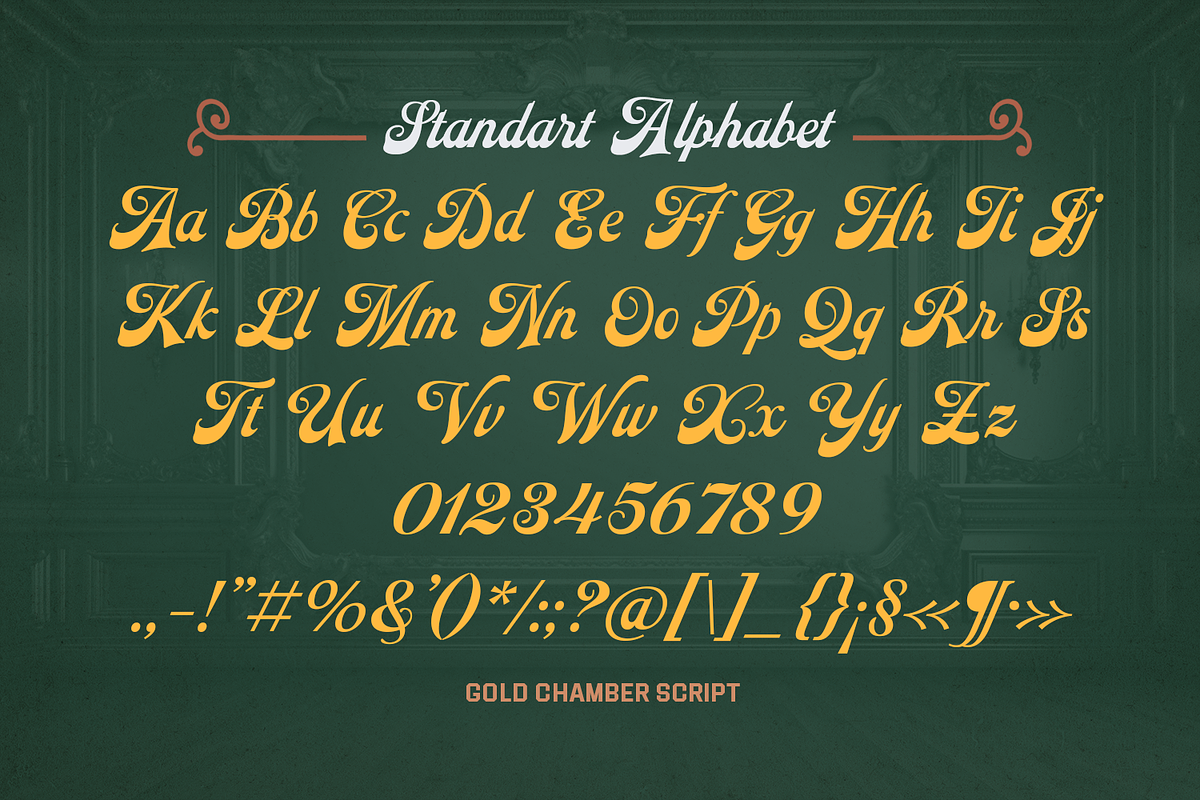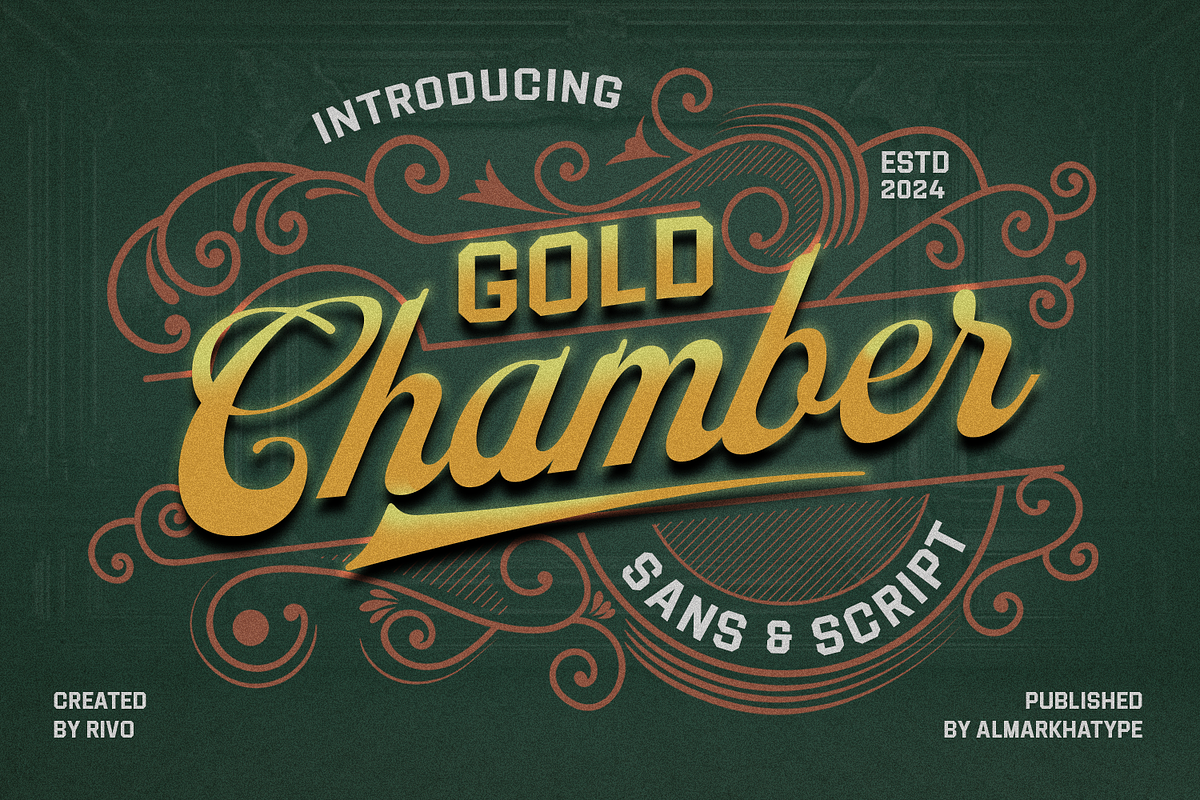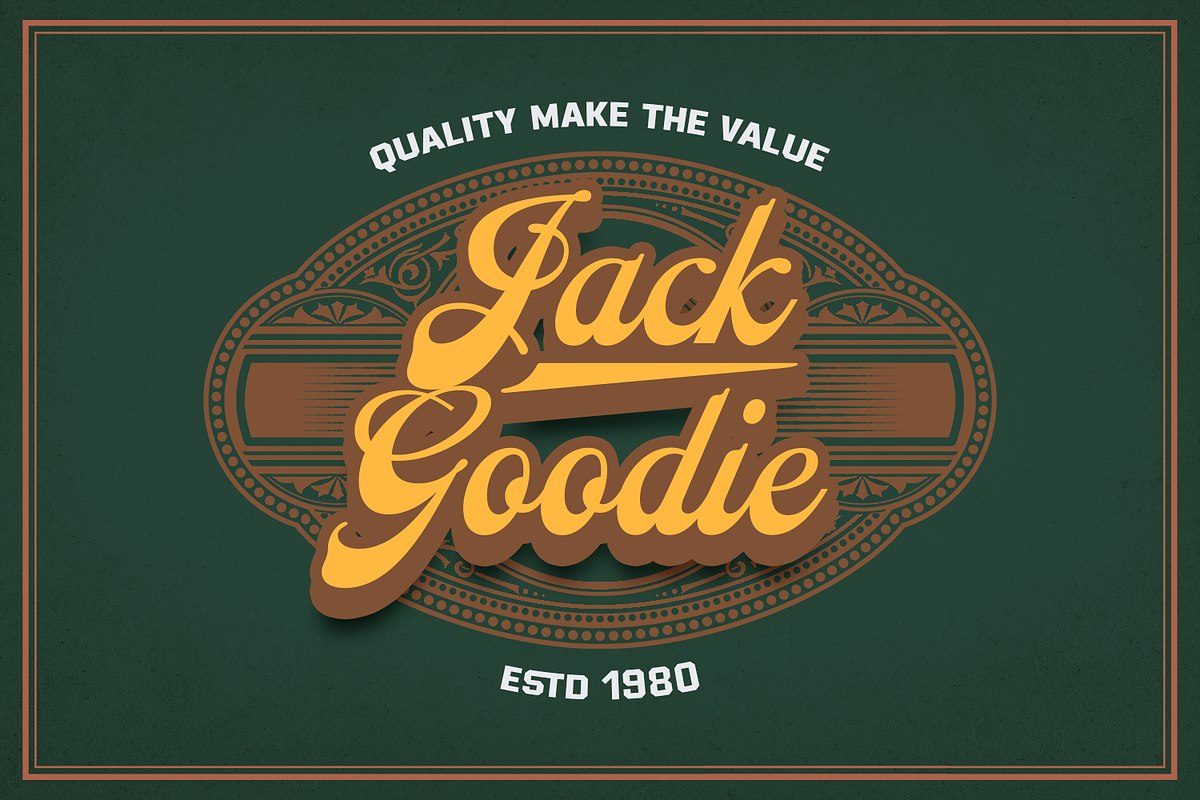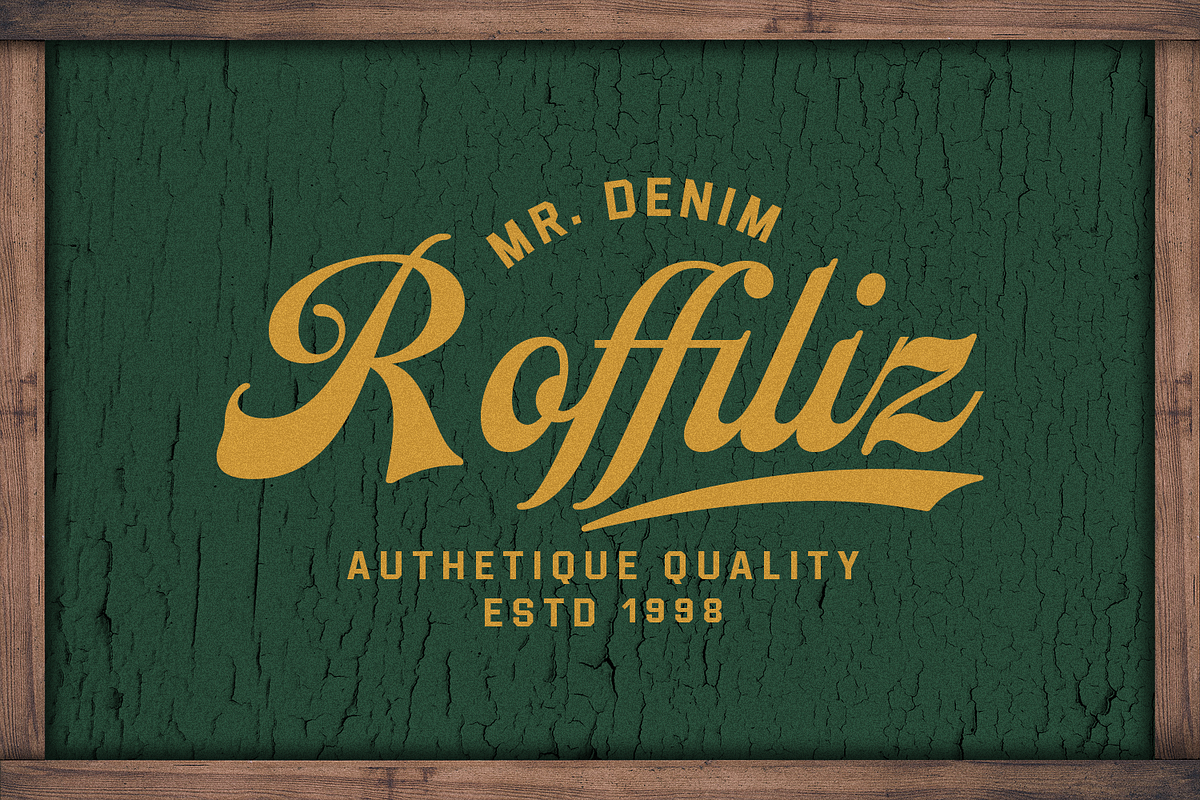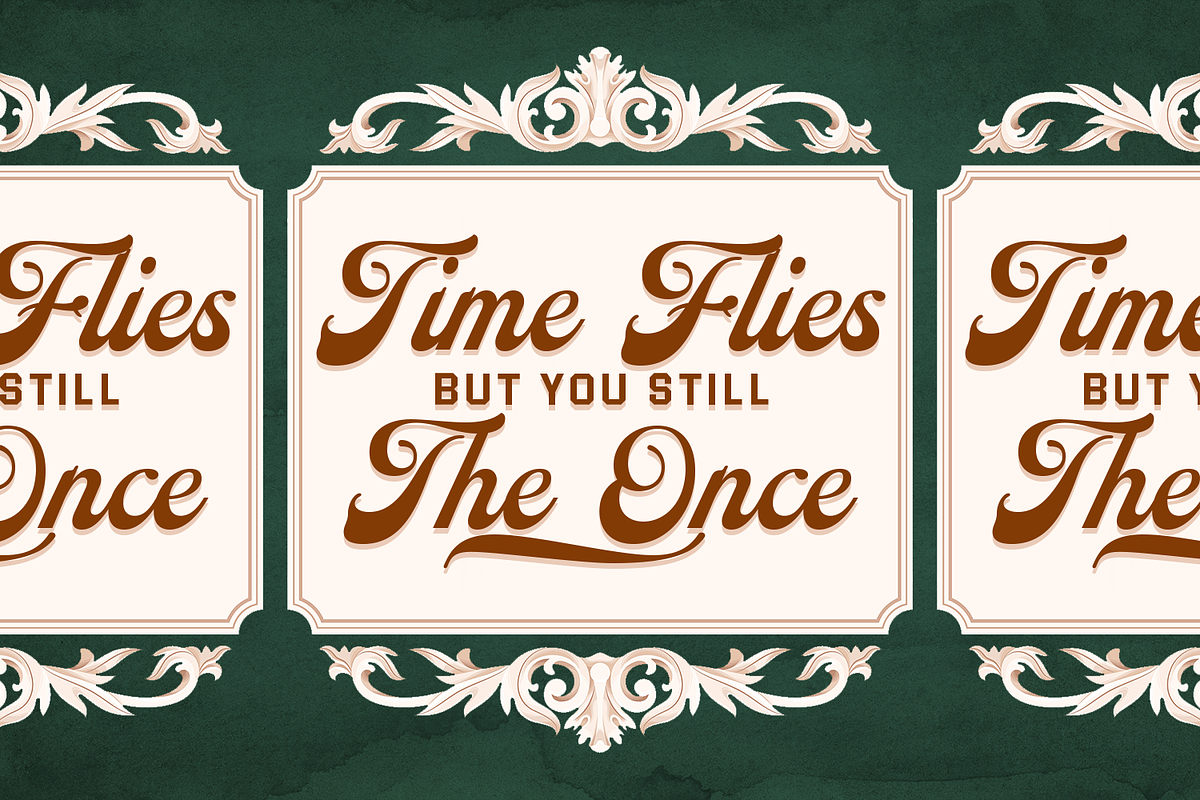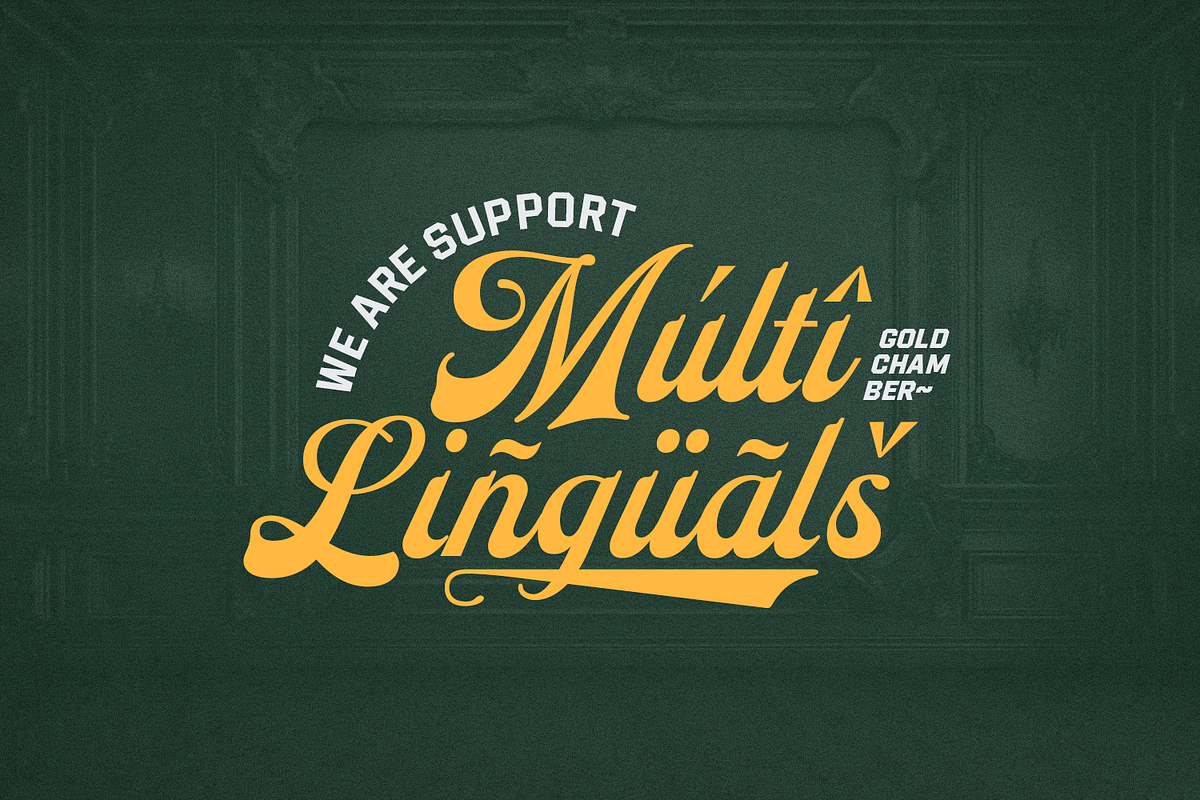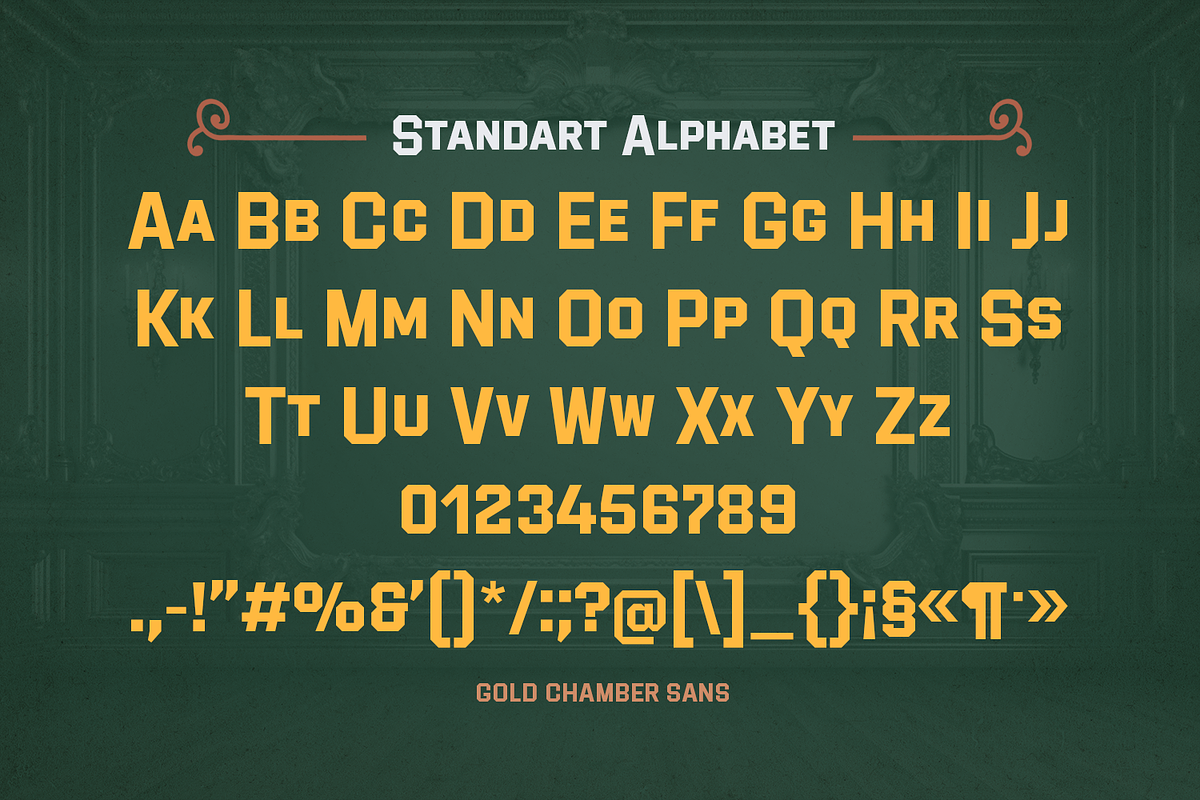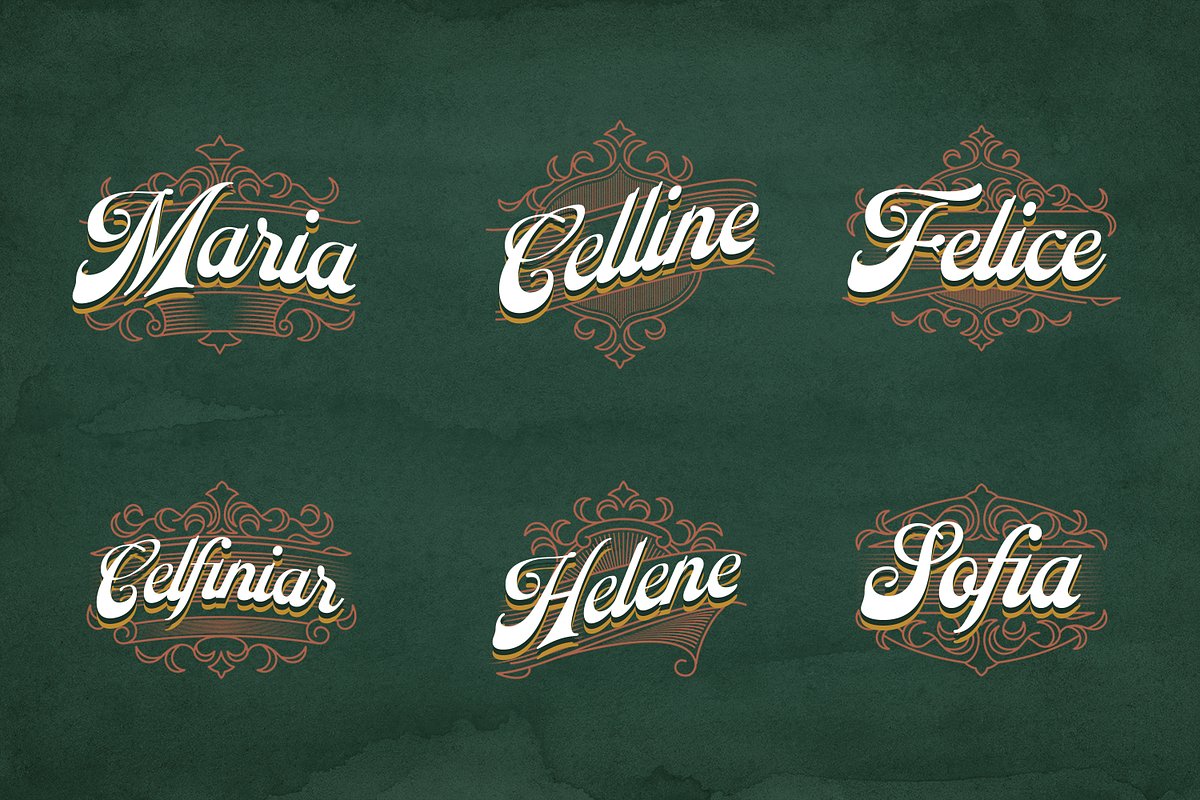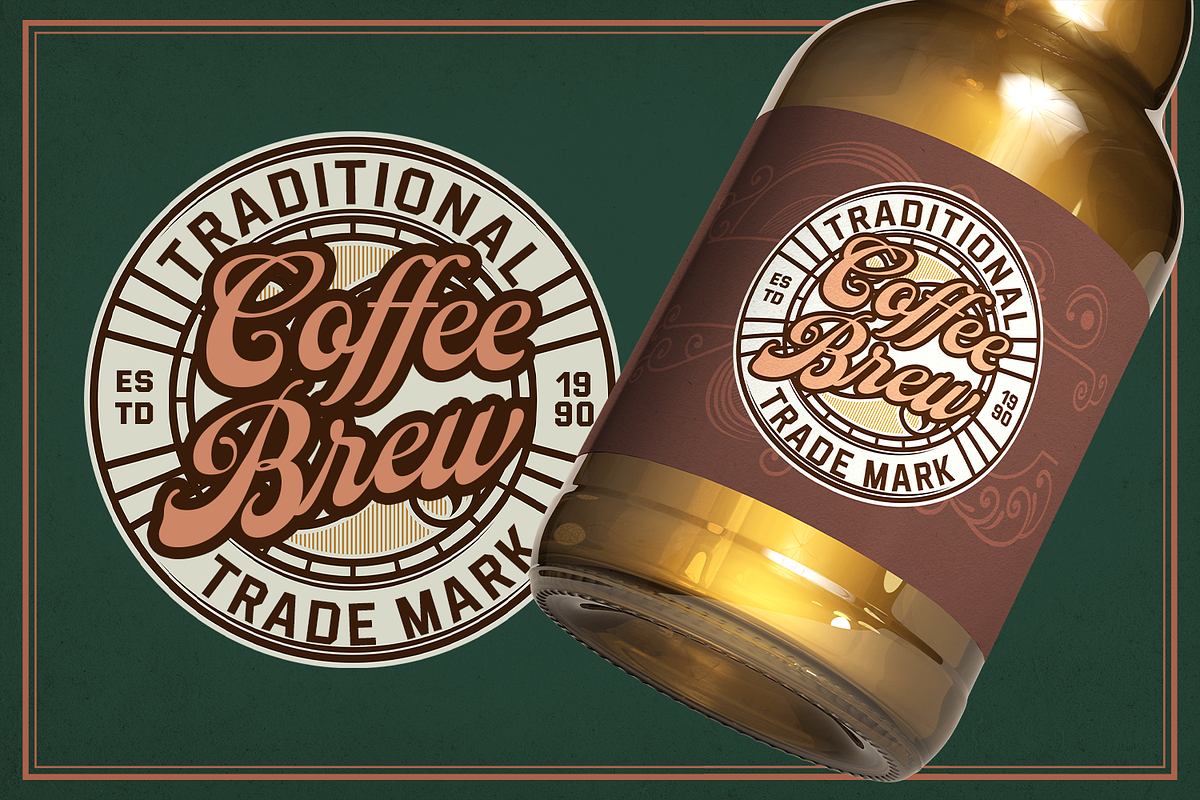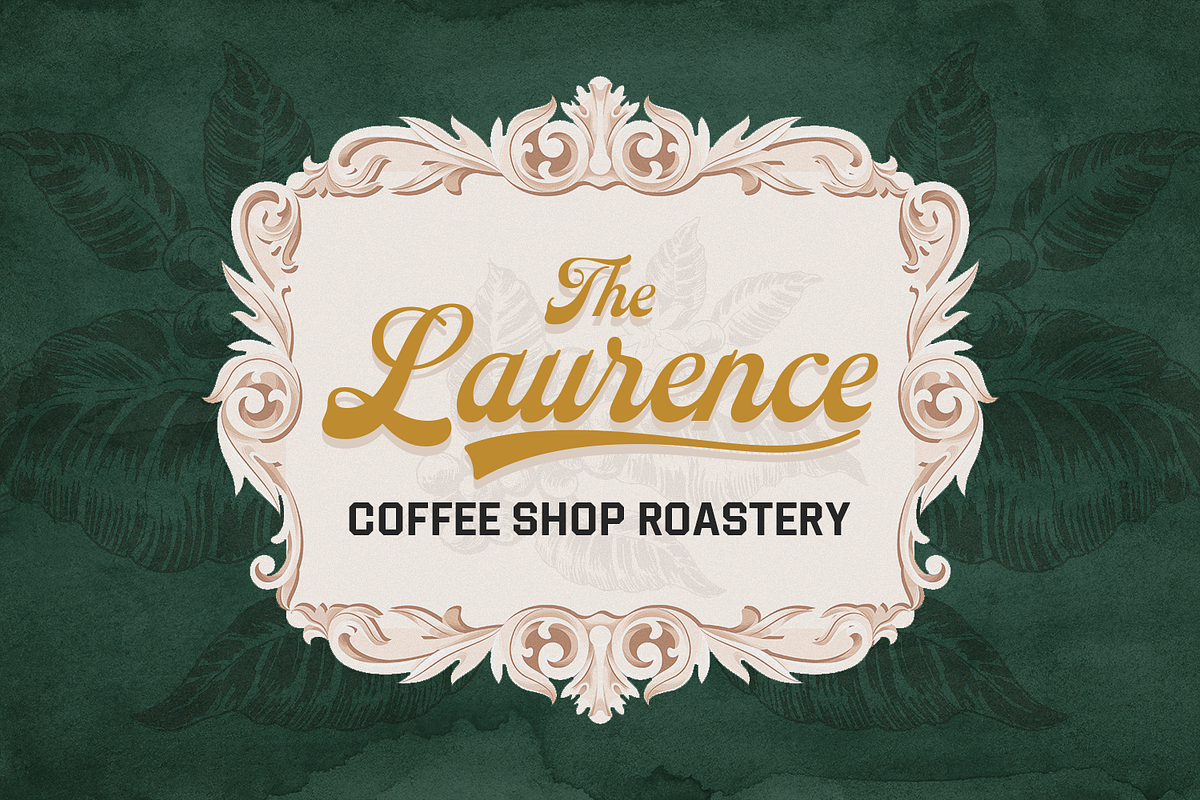
Gold Chamber – Vintage Script
Introducing Gold Chamber, a dynamic and robust set of fonts inspired by vintage labels of the past. This collection evokes the mechanical charm and industrious spirit of yesteryear, offering versatility and strength for your design needs.
Standard glyphs
Ligatures glyphs
Alternate glyphs
International Accent